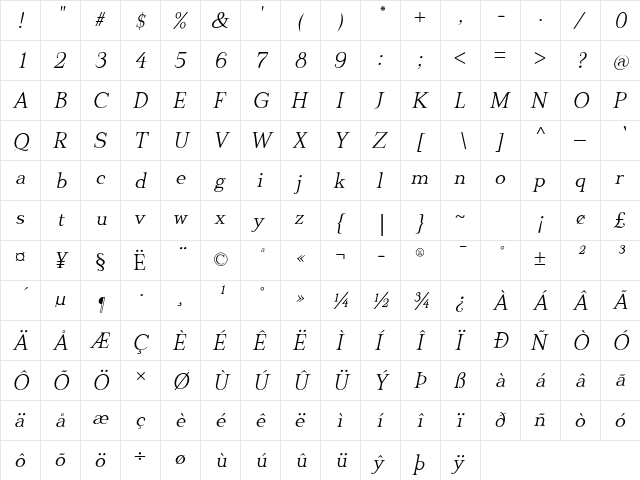
DionisiiOTF Lt Light Italic Font Preview
| Foundry | Denis A Serikov |
| Designer | Denis A Serikov |
Design Context for DionisiiOTF Lt Typeface
DionisiiOTF Lt offers clean, dependable letterforms without strong stylistic allegiance, making it a practical choice for designers who need flexibility. The dynamic lean of this cut emphasises speed and emphasis in any layout. Its slender proportions lend an understated elegance to any composition.
Pro Tip: Try DionisiiOTF Lt for annotation and caption copy alongside an upright companion — the contrast in angle creates a dynamic but ordered typographic system.